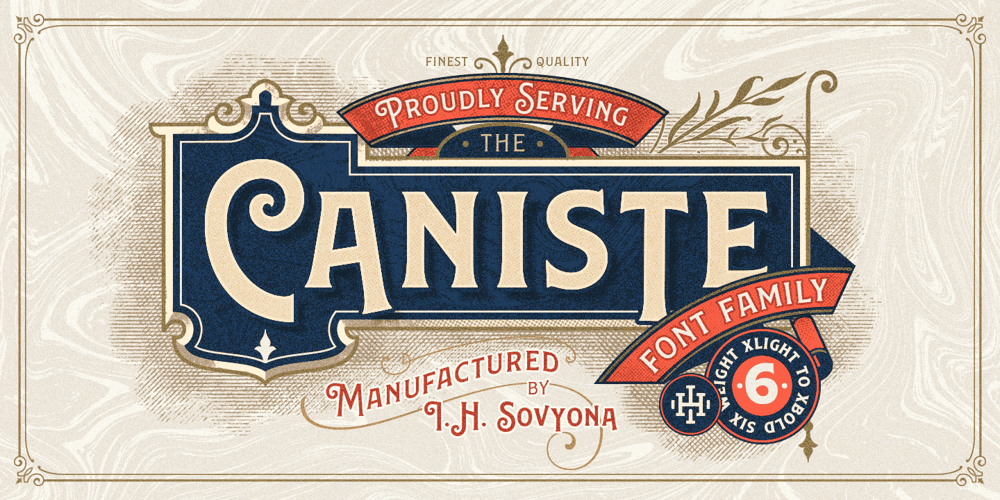
Caniste
Caniste font
Caniste Font Family was designed by Ilham Herry and published by Ilham Herry. Caniste contains 7 styles and family package options. The vintage typeface returns with the Caniste typeface family. My passion for something with a vintage aesthetic is one reason I created Caniste. Inspired by antique ephemera such as cigar box labels that were common in the 19th century, it harkens back to the beauty of typographic design at that time. The Caniste font family is an all-caps serif font with uppercase titling. It comes in 6 weights: Extra Light, Light, Regular, Semibold, Bold, and Ultra Bold. It also has very user-friendly Extras, such as scrolls, ornaments, and panels, and allows you to create beautiful ornamentation to suit your needs. I hope you enjoy using the Caniste fonts. Thank you!